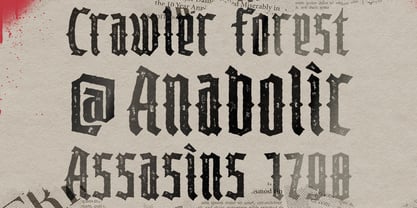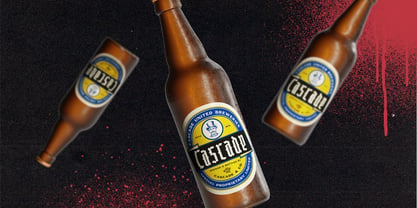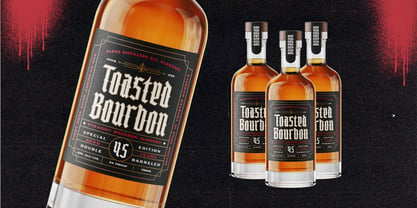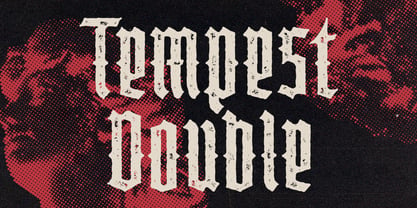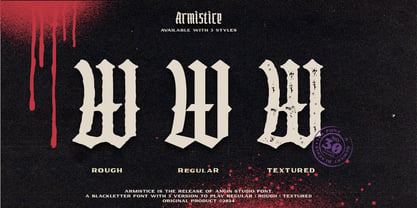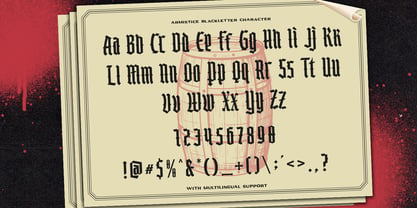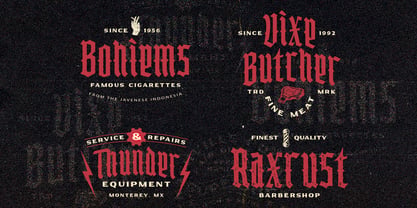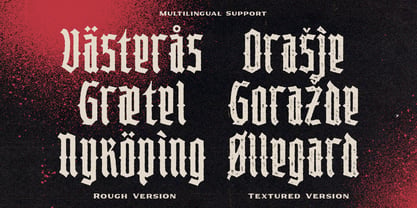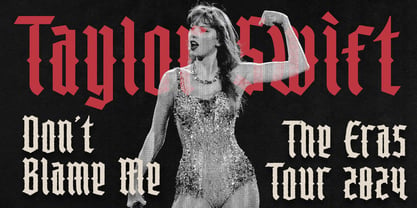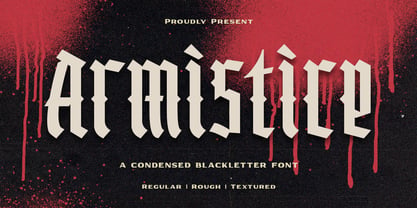
Armistice
by Angin Studio
The Armistice Font Family was designed by Ahmad Aswin, David Novrian and published by Angin Studio. Armistice contains 3 styles and family package options. More about this family
• Armistice Regular
• Armistice Rough
• Armistice Textured
Let us introduce our new blackletter font called Armistice, inspired by medieval manuscripts.
This font, made with our love a condensed blackletter, giving you a touch of historical sophistication to your design projects.
This font is an excellent choice for those who want to blend the old-world charm of blackletter with the practicality of modern typography.
Bring a piece of history to your designs. Enhance your typography with Armistice Condensed Blackletter.
Designers: Ahmad Aswin, David Novrian
Foundry: Angin Studio